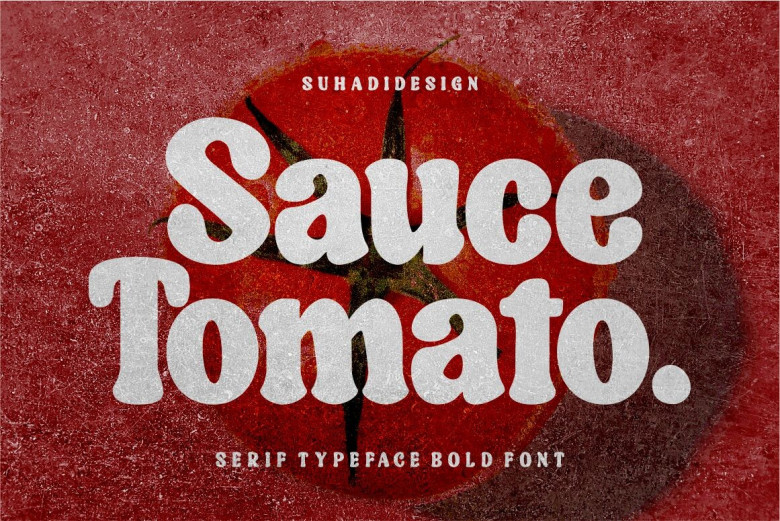
Sauce Tomato Font
The Sauce Tomato font is an eye-catching Retro serif typeface designed for design purposes, and has quickly become one of the most desired fonts by many people – quickly becoming a market-beating font in its own right. Elegant yet stylish with easy reading characteristics and stylish aesthetics; fashionable appeal; simple to use; this font stands out.
Sauce Tomato Font is the ideal solution for branding names and logos for food companies and drinks brands, magazine logos and books, retro banner designs banners, brand name branding quotes album covers and any other projects requiring branding names and logos.
Sauce Tomato Bold Serif Font